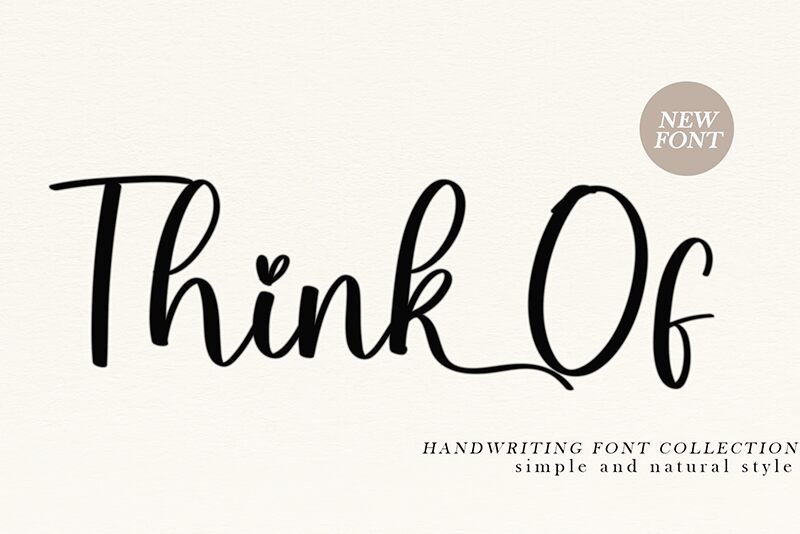
Think Of font
Think Of
This font features a classy calligraphic influence while maintaining a contemporary and fresh aesthetic. Its versatility makes it ideal for a variety of creative applications, from letterheads and titles to stationery.